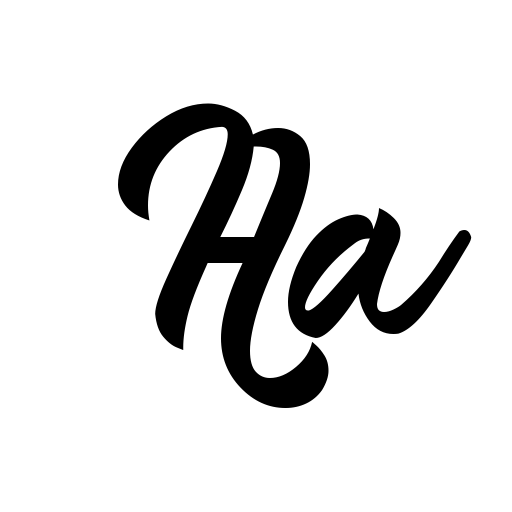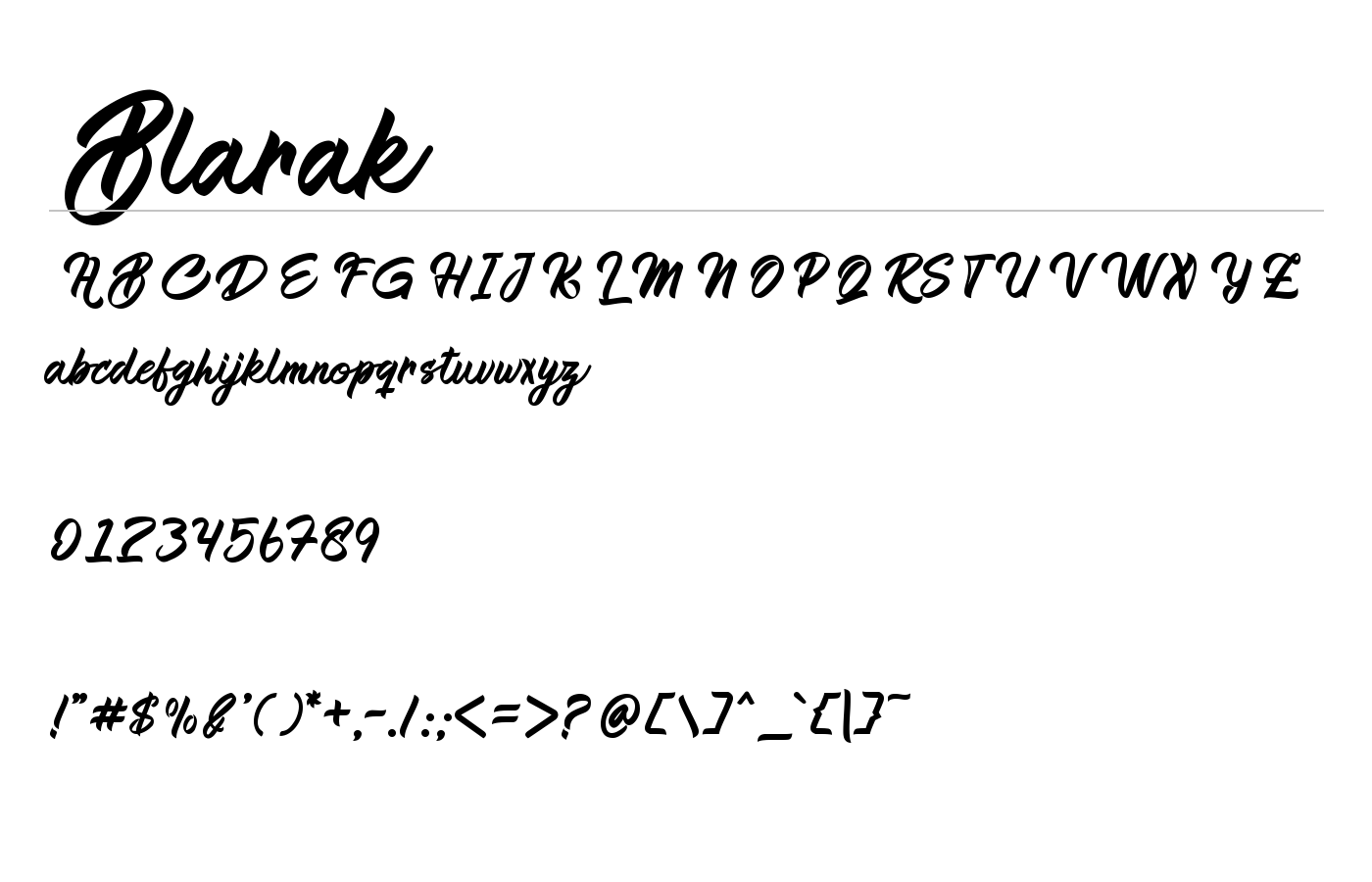
Blarak is a lively script font with a bold, smooth stroke that gives it a friendly and energetic flair. Its rounded shapes and connected letters offer a casual yet polished look, making it ideal for creative branding, invitations, and expressive headlines. This font stands out with its modern calligraphic style that balances readability with a personal touch.
Blarak Font
About Blarak Font
| Font family | Blarak Font |